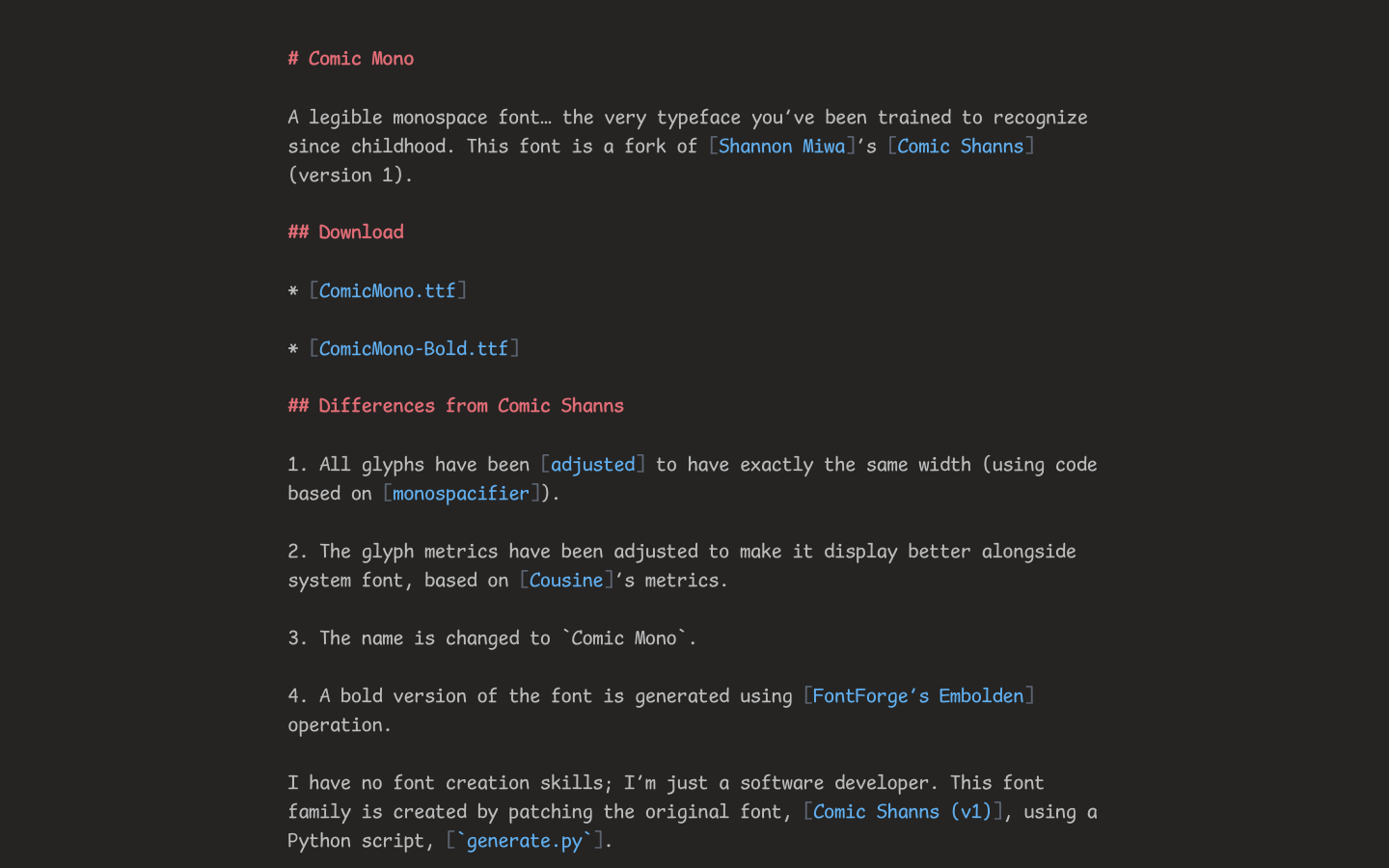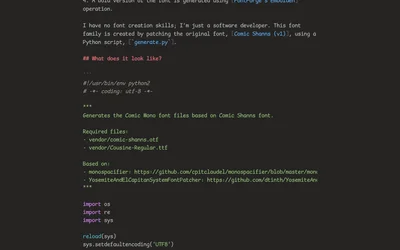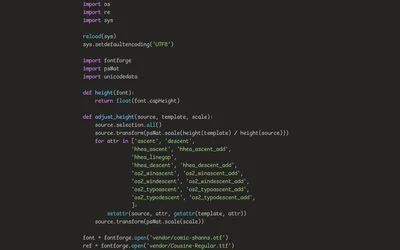
Comic Mono vs Menlo
Comic Mono and Menlo are both mono typefaces sharing a monospace foundation. Where Comic Mono leans expressive, handwritten, Menlo brings code, tech. Compare which suits your Code project.
Comic Mono
Monospace
ExpressiveHandwritten
Menlo
Monospace
CodeTech
Comic Mono
Menlo
| Feature | Comic Mono | Menlo |
| Classification | mono | mono |
| Language Support | latin | latin, latin-extended |
| Source | Shannon Miwa | Apple Inc. |
Recommended: Comic Mono
- expressive, handwritten design character
- Suited for Fun and Casual
- From shannon-miwa
Consider: Menlo
- code, tech design character
- Suited for Terminal and Technical
- From apple